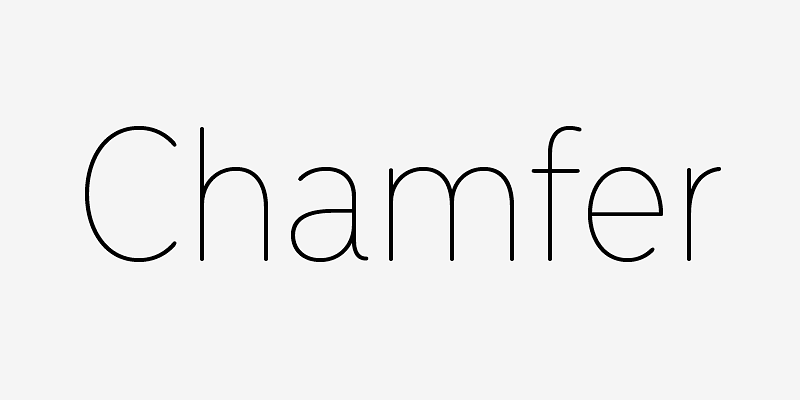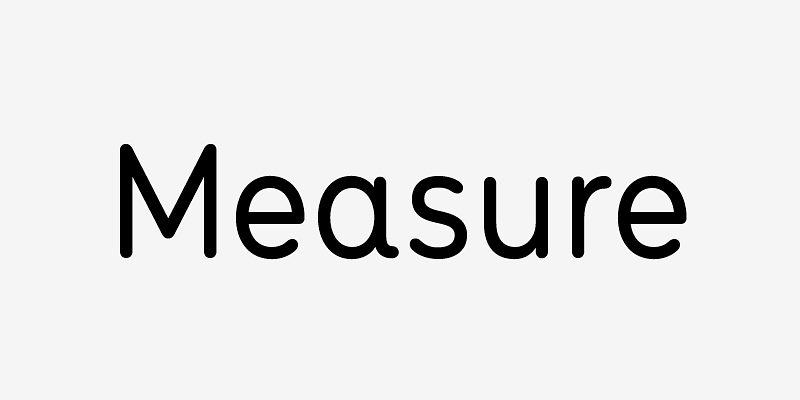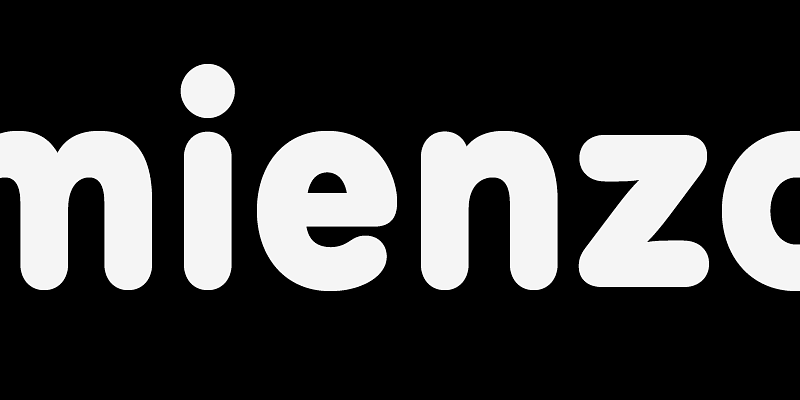
Menco is a typeface rooted in the precise lettering traditions of engineering — from blueprints and mechanical drawings to stencils and drafting templates. The family includes five weights from Thin to Black, each with matching italics. Menco offers advanced typographic features such as case-sensitive forms, fractions, super- and subscript characters, stylistic alternates, and both tabular and proportional lining figures.